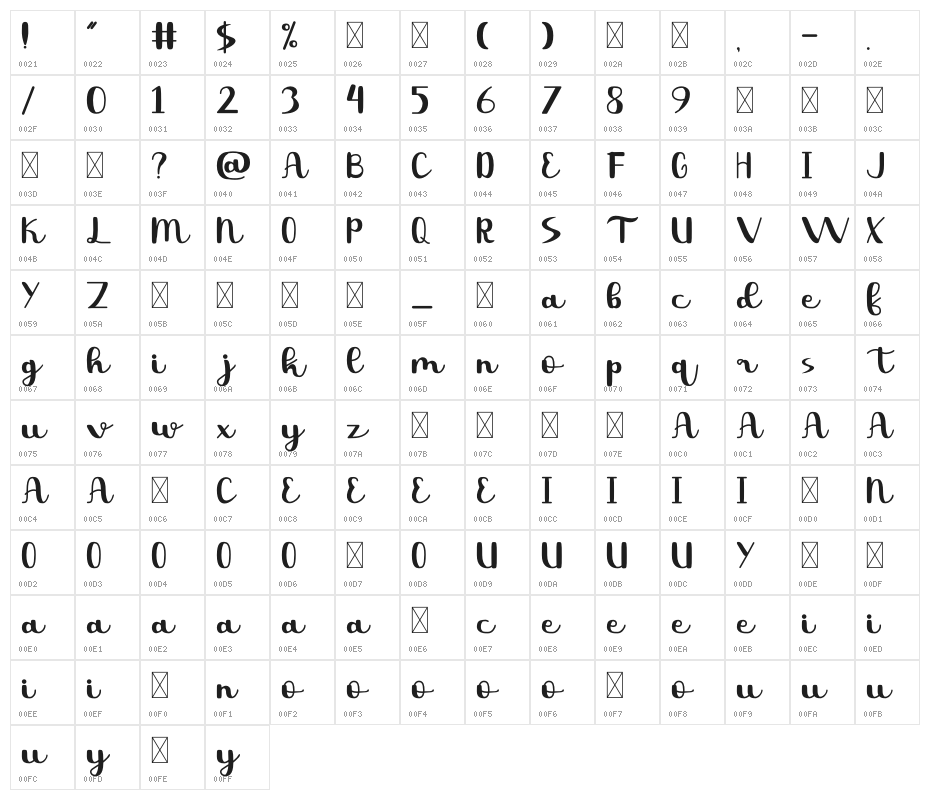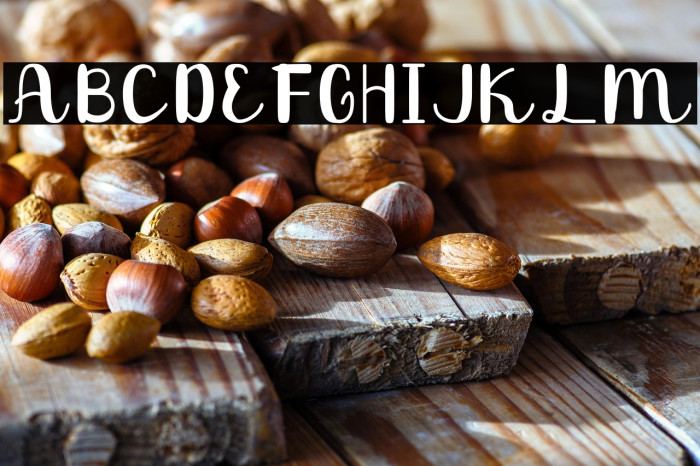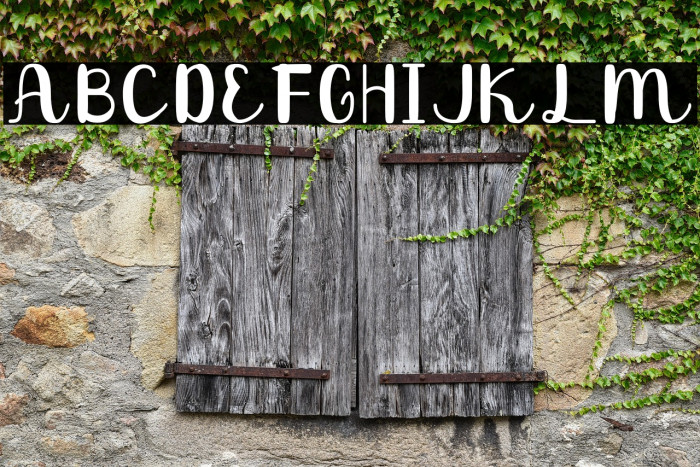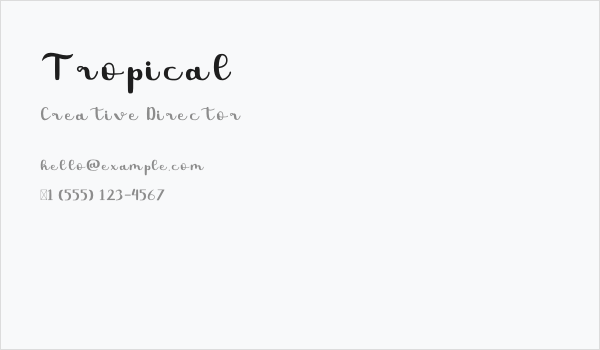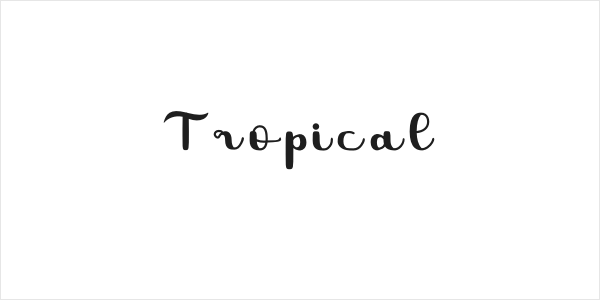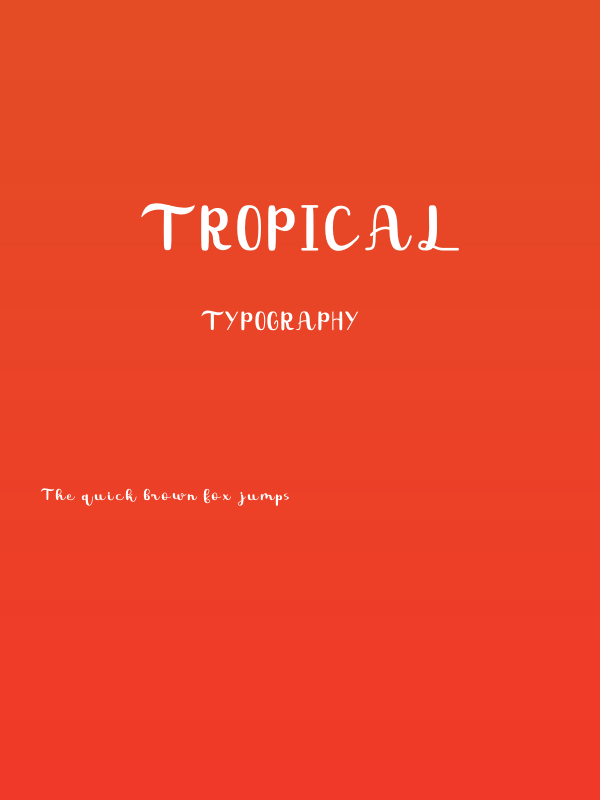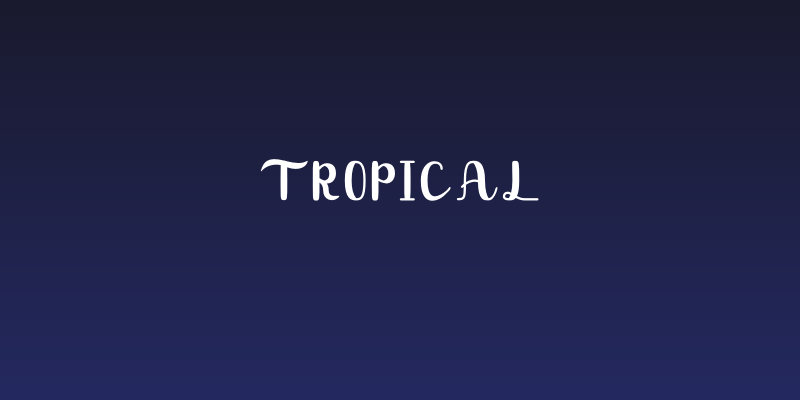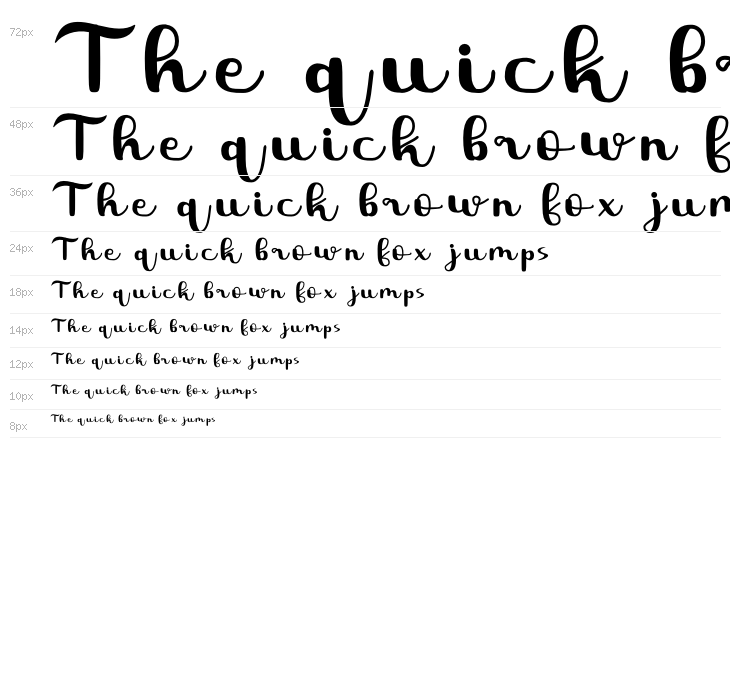
Tropical Font
Tropical Description
This font features a playful and whimsical style with a handwritten appearance. The uppercase letters have a bold and flowing design, while the lowercase letters maintain a consistent and smooth curvature. The numerals are distinct and easy to read, complementing the overall aesthetic. Special characters are creatively integrated, adding to the font's charm. The strokes vary in thickness, providing a dynamic and lively feel. This font is suitable for projects that require a friendly and approachable look.
| Overall Style | Playful |
| Use Case | Logos, Headlines, Invitations |
| Proposed Projects | Ideal for greeting cards, invitations, playful branding, children's books, and social media graphics. |